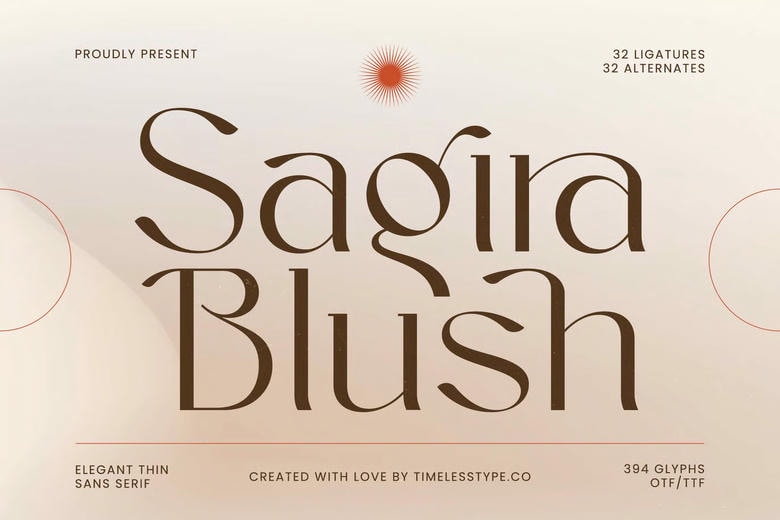
Sagira Blush Font
Sagira Blush Font is a sophisticated slim line sans-serif display typeface designed with sophisticated curves, low contrast, and fine contemporary details. This font is simplicity mixed with the creative expression of high-end editorials, branding of beauty products, feminine packaging, lookbooks, and minimalist luxury-focused projects.
Incorporating 32 ligatures and 32 alternates, Sagira Blush has a beautiful stylistic choice to assist designers to create unique headlines with a refined, flowing feel. It has lightweight lettering and delicately drawn decorative lines to give it a unique flair that is ideal in high-end designs, tender layouts, wedding designs, lifestyle branding, and contemporary advertisements.
Sagira Blush Sans Serif Font